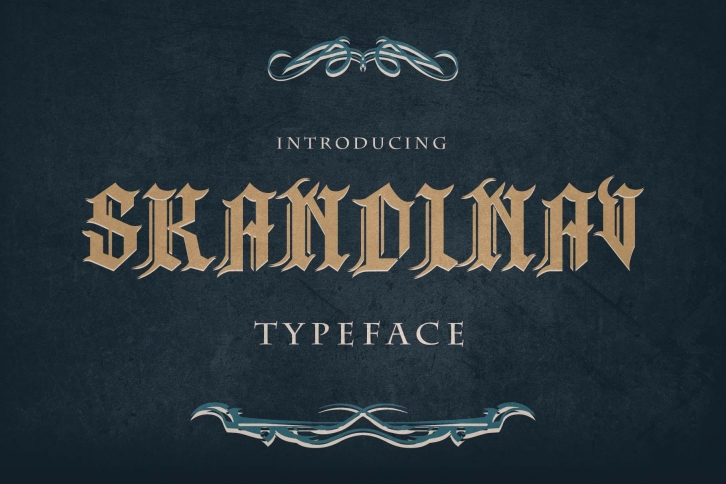
Skandinav Is a typeface inspired in tattoo letters, and dedicated to everyone who love tattoo culture, chicano culture and street art. We also add extra illustrations for you so you can imagine more in making your project. Skandinav is Suitable for many creative products & tattoo designs, like posters, t-shirt, street wear, logo, signage, Album Cover, Bottle Beer, etc